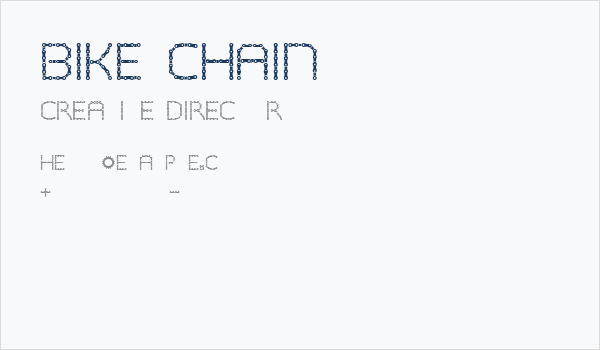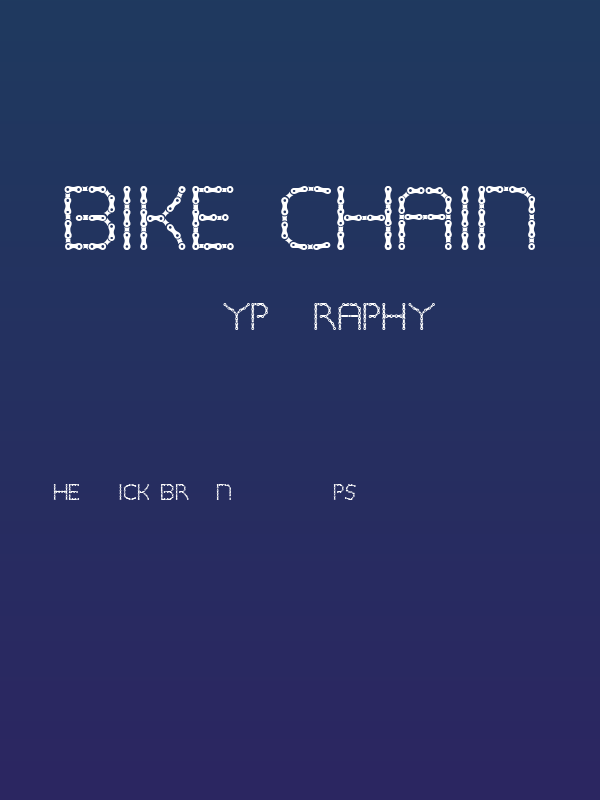
BIKE CHAIN Font
BIKE CHAIN Description
This font features a unique, industrial design reminiscent of bicycle chains. Each character is crafted to resemble interconnected links, giving it a mechanical and rugged appearance. The uppercase and lowercase letters maintain a consistent style, with rounded edges and a bold presence. Numbers and special characters are also designed to match the overall theme, ensuring a cohesive look across all text elements. The font's distinct style makes it stand out, ideal for projects that require a strong, unconventional aesthetic.
| Overall Style | Industrial, Mechanical, Rugged |
| Use Case | Logos, Posters, Branding |
| Proposed Projects | Ideal for branding in the automotive or cycling industries, posters, logos, and any design requiring a strong, industrial theme. |